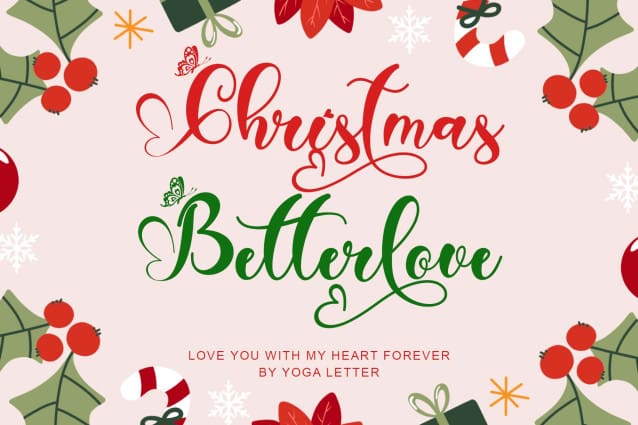
Christmas Betterlove Font
Christmas Betterlove Font is a beautiful and elegant handwritten font. This font is equipped with uppercase, lowercase, numerals, punctuation, ligatures, alternates, and multilingual support. Very suitable for Christmas, Valentine’s Day, winter, invitations, stickers, weddings, engagements, and others.